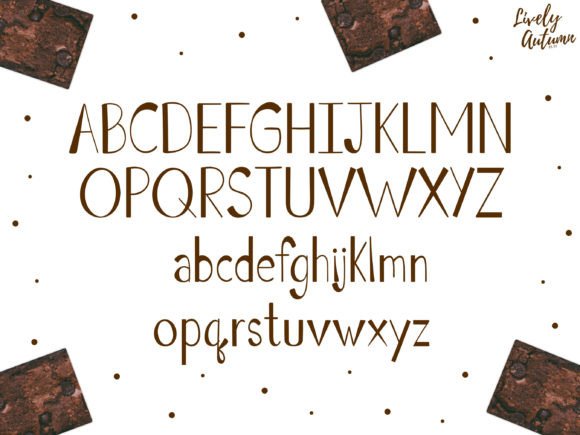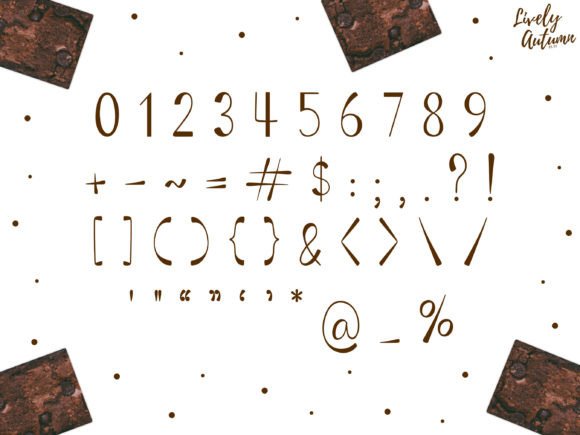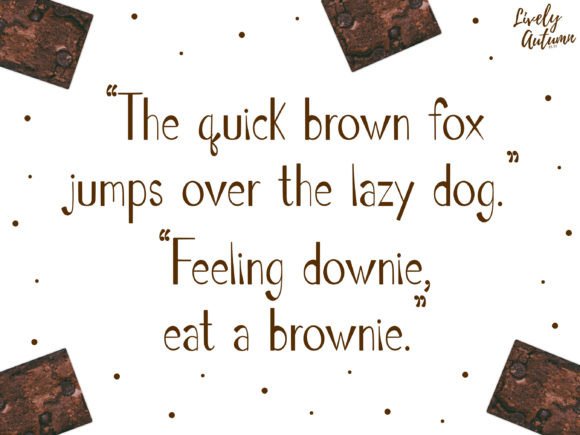
Brownie Font: The Sweet and Friendly Handwritten Font for Your Design Needs
Are you a designer or crafter looking for a font that can add a personal touch to your projects? Look no further than the Brownie font! This sweet and friendly handwritten font is perfect for a wide range of designs, from invitations and greeting cards to branding and packaging. In this article, we’ll take a closer look at the Brownie font, its features, and how you can use it to take your designs to the next level.
What is Brownie Font?
Brownie font is a beautiful, handwritten font that is designed to look like it was written with a pen or pencil. Its natural and unique style makes it incredibly fitting to a large pool of designs, from rustic and vintage to modern and playful. The font is characterized by its rounded letters, subtle imperfections, and friendly feel, making it perfect for designs that require a personal touch.
Key Features of Brownie Font
- Handwritten style: Brownie font has a natural, handwritten style that gives it a unique and personal feel.
- Rounded letters: The font features rounded letters that give it a soft and friendly look.
- Subtle imperfections: The font has subtle imperfections that make it look like it was written by hand.
- Versatile: Brownie font is incredibly versatile and can be used for a wide range of designs.
Uses of Brownie Font
Brownie font is perfect for a wide range of designs, including:
- Invitations and greeting cards: The font’s friendly and personal style makes it perfect for invitations and greeting cards.
- Branding and packaging: Brownie font can be used to create unique and eye-catching branding and packaging designs.
- Signs and posters: The font’s bold and playful style makes it perfect for signs and posters.
- Digital designs: Brownie font can be used for digital designs, such as social media graphics and blog posts.
Why Choose Brownie Font?
There are many reasons why you should choose Brownie font for your design needs. Here are a few:
- Unique style: Brownie font has a unique and personal style that will set your designs apart from others.
- Easy to read: The font is easy to read, making it perfect for designs that require a lot of text.
- Versatile: Brownie font is incredibly versatile and can be used for a wide range of designs.
- High-quality: The font is high-quality and will look great in any design.
Tips for Using Brownie Font
Here are a few tips for using Brownie font in your designs:
- Use it with a simple background: Brownie font looks best with a simple background that won’t distract from the text.
- Experiment with colors: The font looks great in a variety of colors, so don’t be afraid to experiment.
- Use it for headings and titles: Brownie font is perfect for headings and titles, but it can also be used for body text.
Brownie font is a sweet and friendly handwritten font that is perfect for a wide range of designs. Its natural and unique style makes it incredibly fitting to a large pool of designs, and its versatility makes it a great choice for designers and crafters. With its rounded letters, subtle imperfections, and friendly feel, Brownie font is sure to add a personal touch to your designs. So why not give it a try and see what you can create?